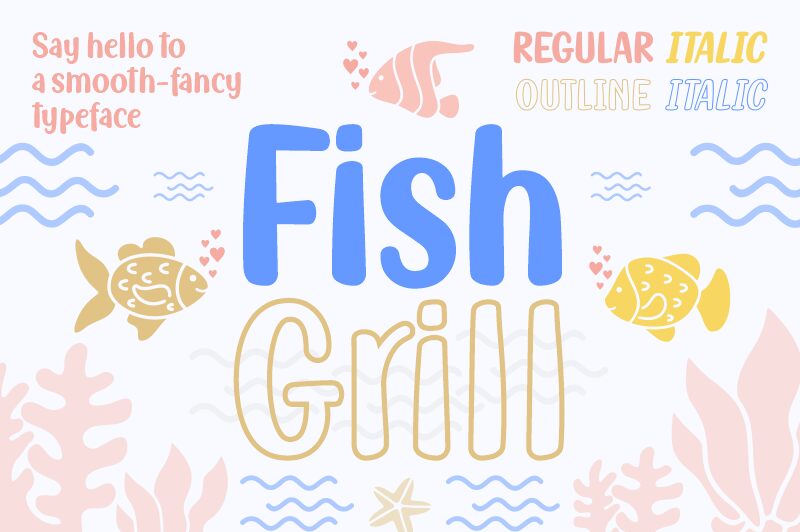
Fish Grill
Fish Grill, a captivating handwritten font by Situjuh Nazara, adds a touch of playfulness to any project. With its semi-bold weight and semi-condensed width, this font is perfect for creating eye-catching logos and branding materials. Its unique style lends itself well to food-related projects such as restaurant menus, recipe books, or seafood packaging designs. The charming curves and organic strokes of Fish Grill bring warmth and personality to invitations, greeting cards, and social media posts. Let this delightful typeface swim into your creative endeavors and make a splash!